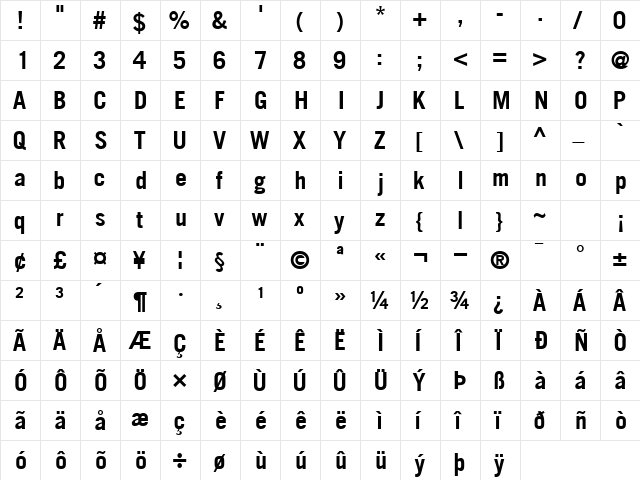
CommerceBlackSSK Regular Font Preview
CommerceBlackSSK Regular
Design Context for CommerceBlackSSK Typeface
CommerceBlackSSK offers clean, dependable letterforms without strong stylistic allegiance, making it a practical choice for designers who need flexibility.